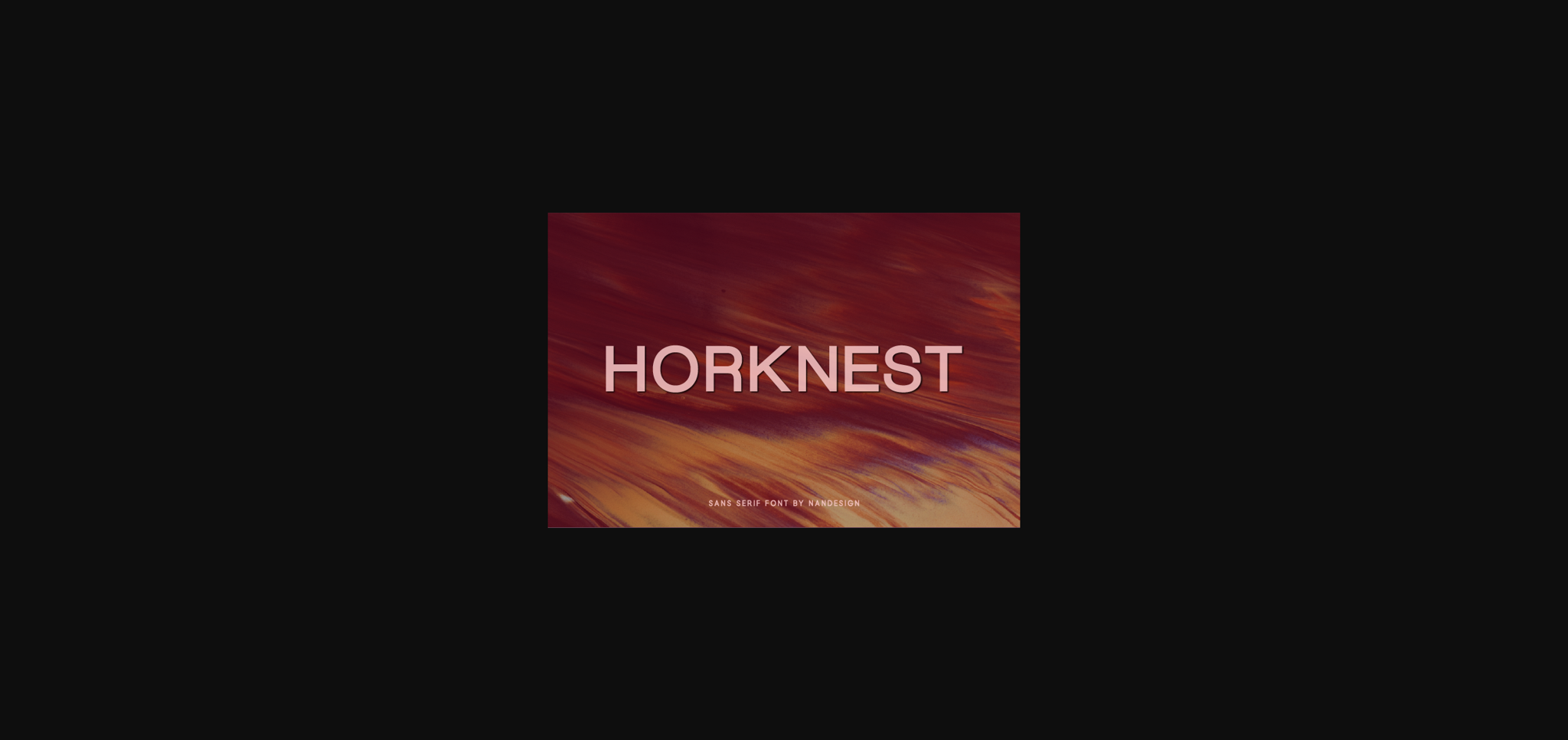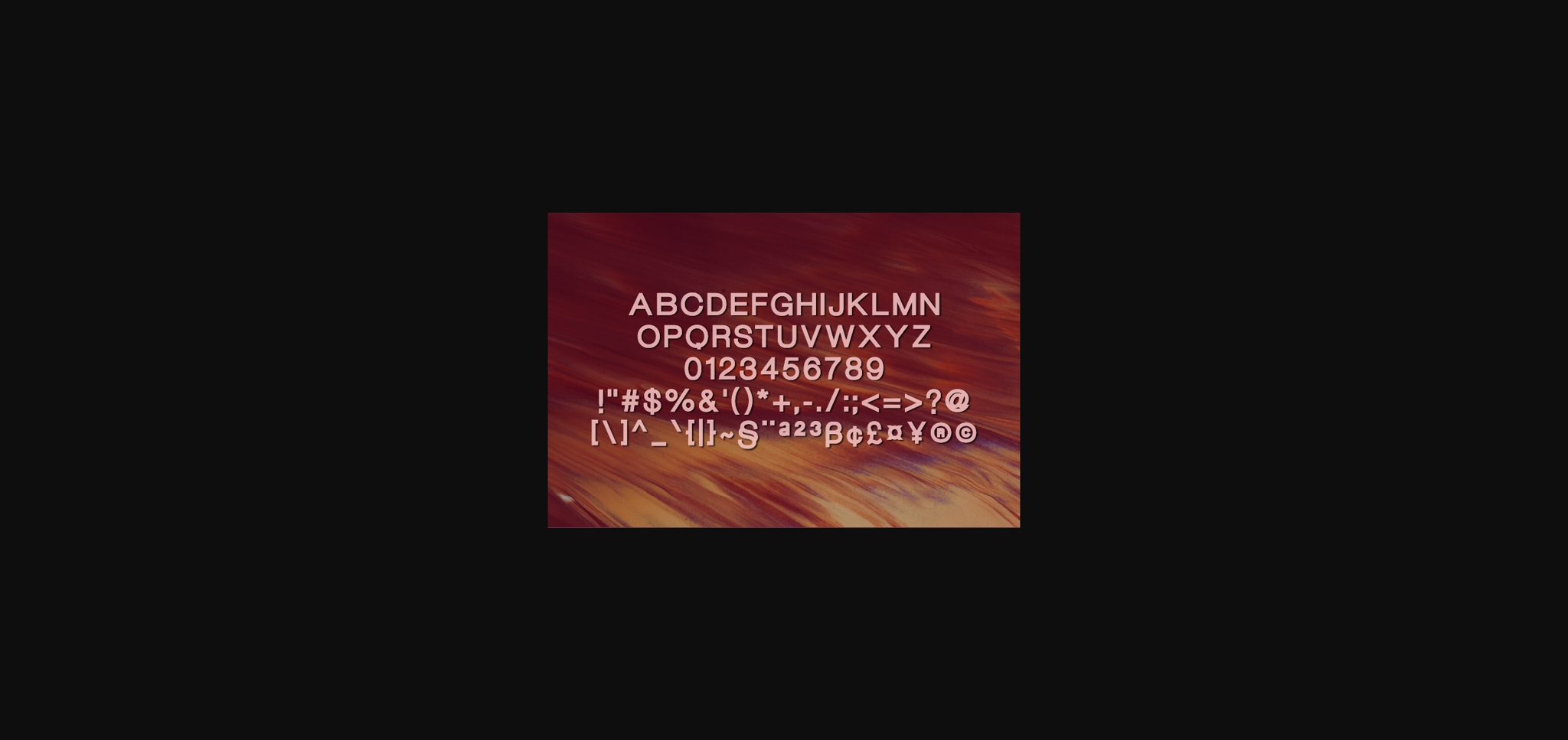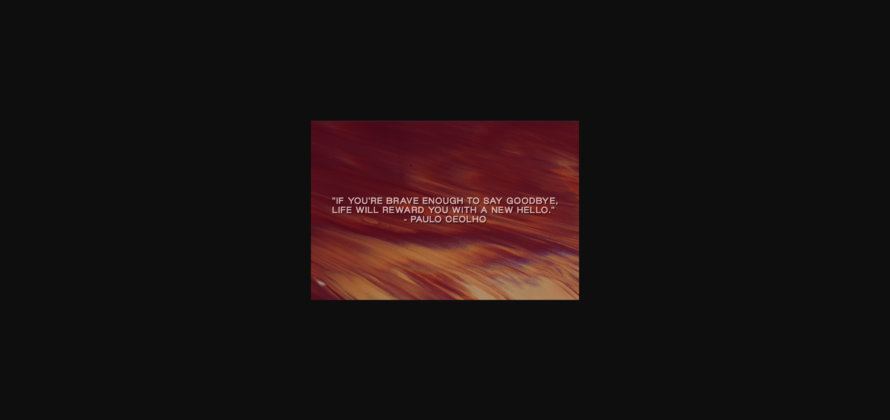
Horknest is a casual and clean sans serif font. It can easily be matched to an incredibly large set of projects, so add it to your creative ideas and notice how it makes them stand out!